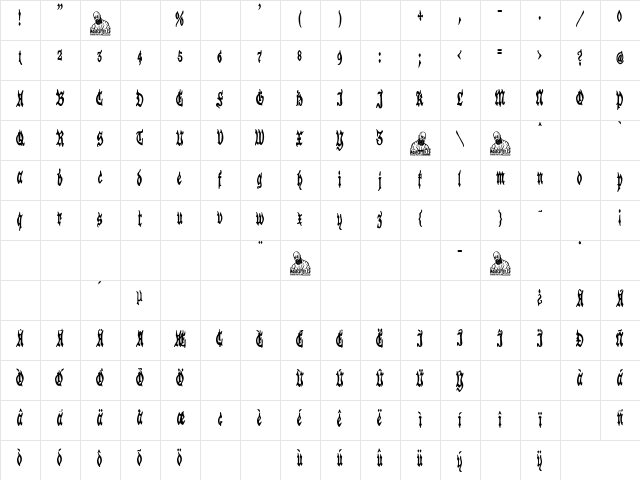
Austrian Hotel Regular Free Font
Austrian Hotel Regular
Designer: Woodcutter Manero
Design Context for Austrian Hotel
Austrian Hotel is a composed and adaptable typeface that performs quietly and consistently across a wide range of design contexts.
Pro Tip: Use Austrian Hotel in both headline and body roles to test its range before committing to a single application.